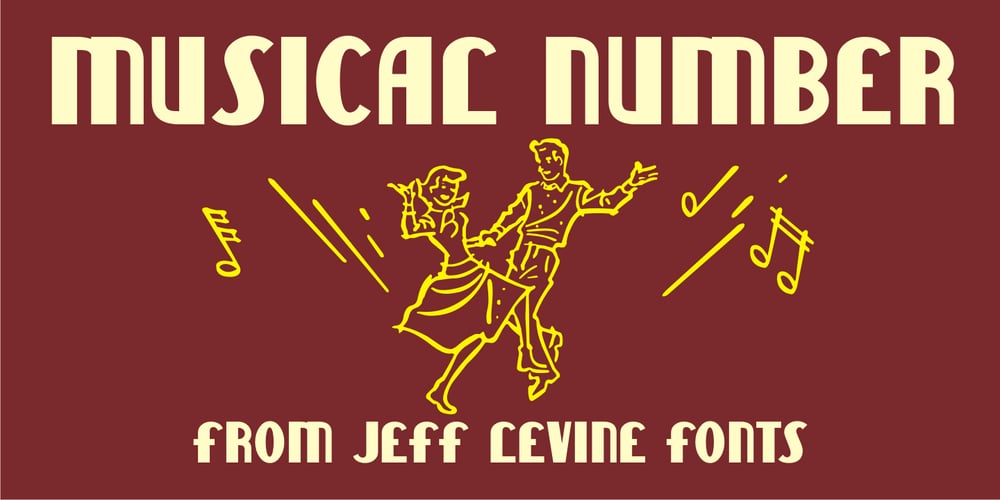
Musical Number JNL Font Family was designed by Jeff Levine and published by Jeff Levine. Musical Number JNL contains 1 styles and family package options. In the MGM musical “Broadway Melody of 1940”, a new stage production has its gala opening at the fictitious Lafayette Theater on the Great White Way. The front of the theater is resplendent with classic neon signage, and the theater’s name is in an interesting Art Deco design. Musical Number JNL recreates this lettering in digital form.